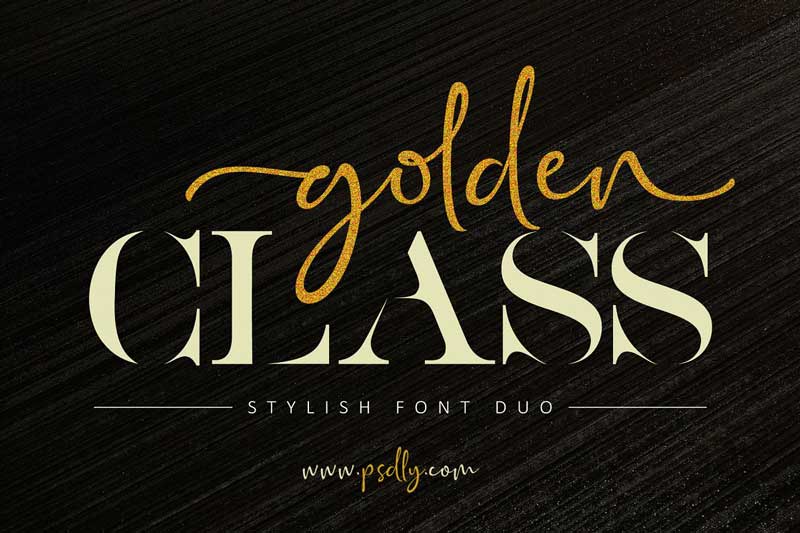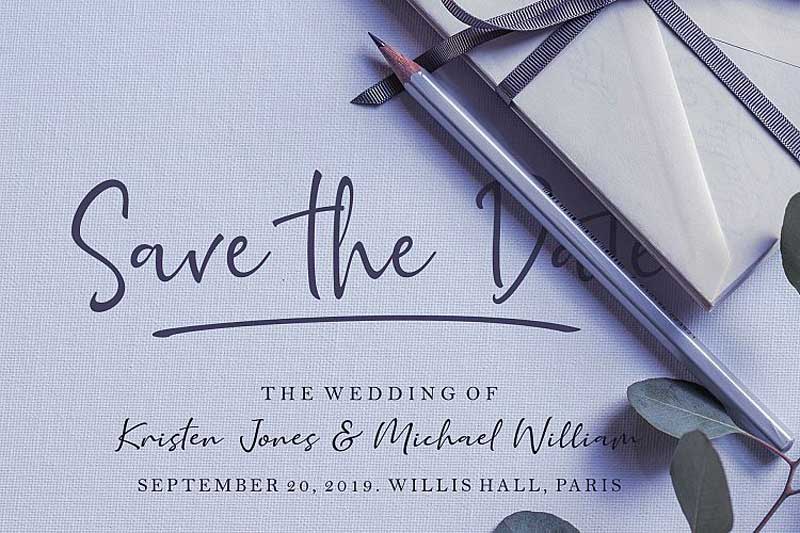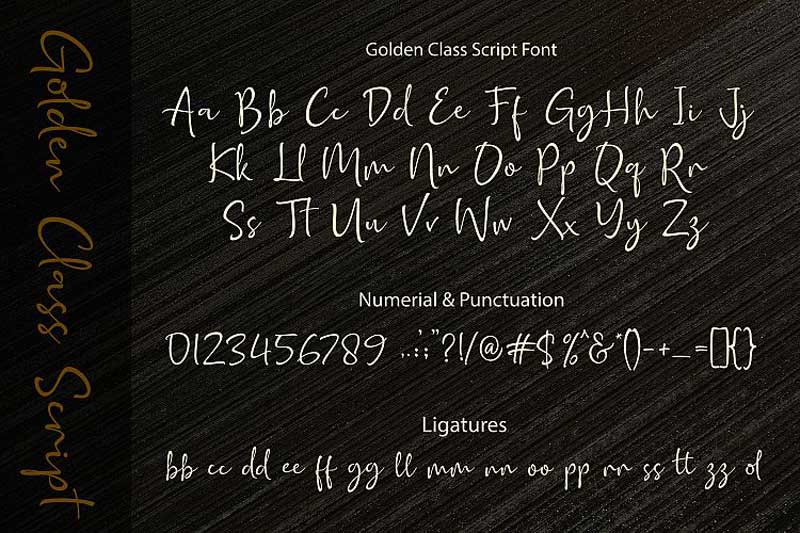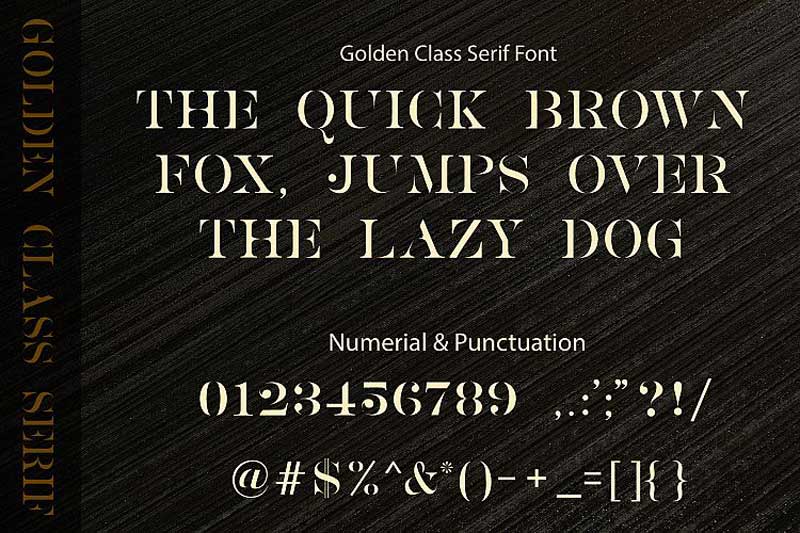
Hello! Everyone today I’m introducing with you a new modern script font name Golden Class Font Duo recently the creator this font (subectype) Added this font on fontbundle and creativemarket for selling. You can use this font for various purpose like a magazine, logo, typography, quotes text, or anything do you want. I will provide you today this font free download link. Let’s Go and try this new script font.